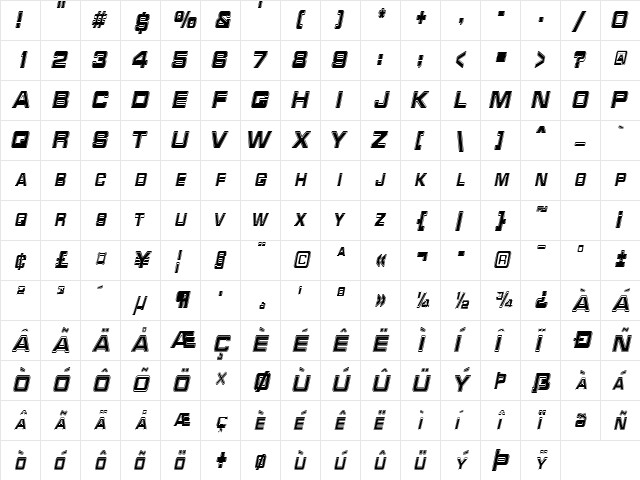
RedAlertCondensed Italic Font Preview
Design Context for RedAlertCondensed Typeface
RedAlertCondensed is a composed and adaptable typeface that performs quietly and consistently across a wide range of design contexts. The dynamic lean of this cut emphasises speed and emphasis in any layout. The condensed width makes it efficient for tight spaces without sacrificing legibility.
Pro Tip: Try RedAlertCondensed for annotation and caption copy alongside an upright companion — the contrast in angle creates a dynamic but ordered typographic system.